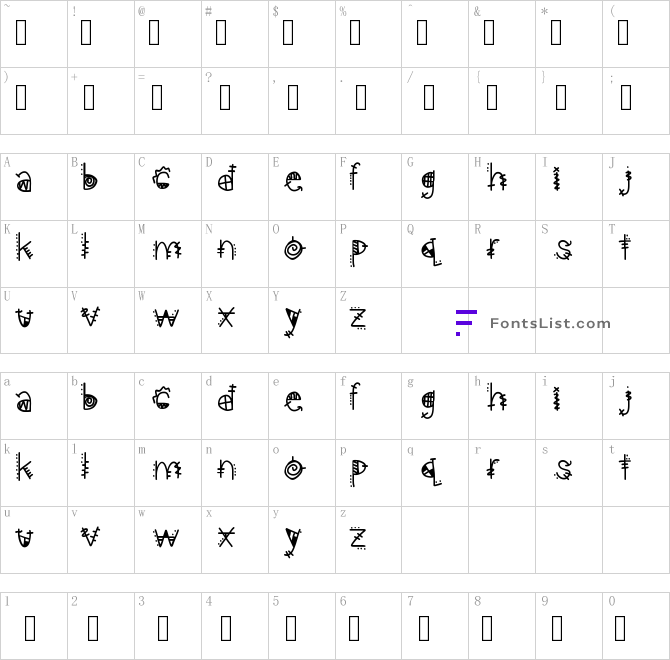
- Font Name:aztec kingdom
aztec-kingdom.ttf is a very beautiful artistic font, aztec-kingdom.ttf is widely used in the design and printing of various books and pictures,aztec-kingdom.ttf has a strong visual impact,aztec-kingdom.ttf is a commonly used font in newspapers, magazines and books, and is used in posters, e-commerce Poster design, store design, logo design, font design and other fields.aztec-kingdom.